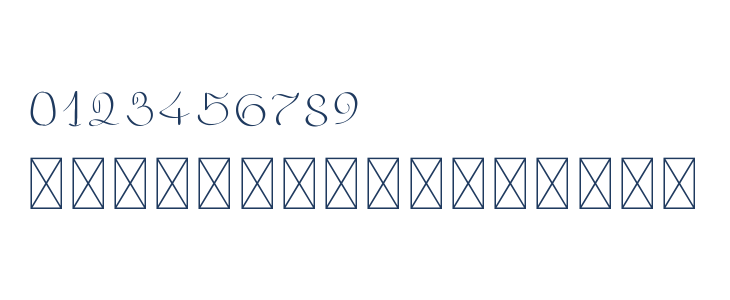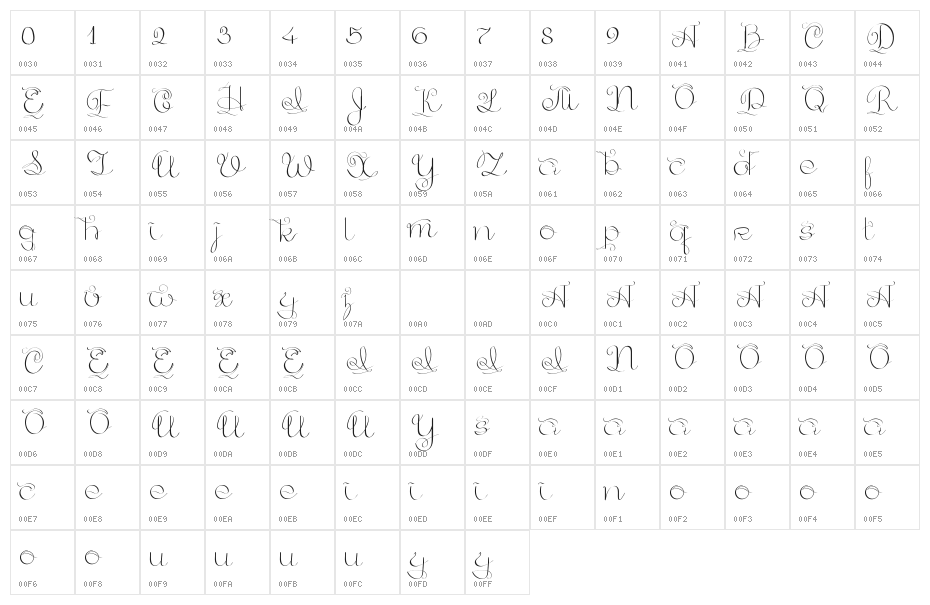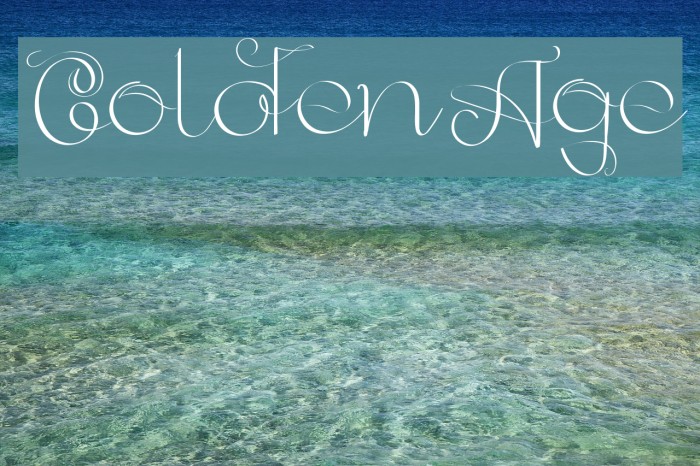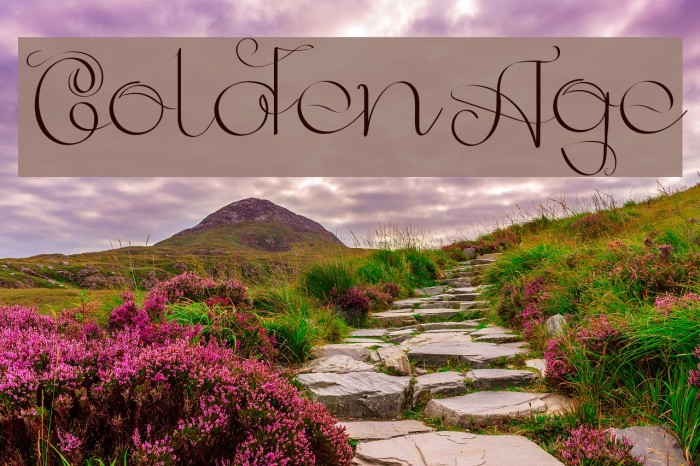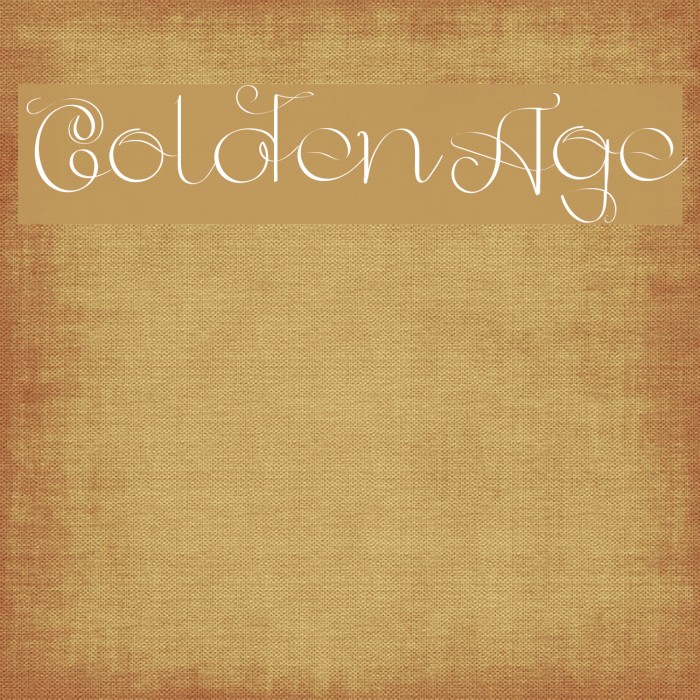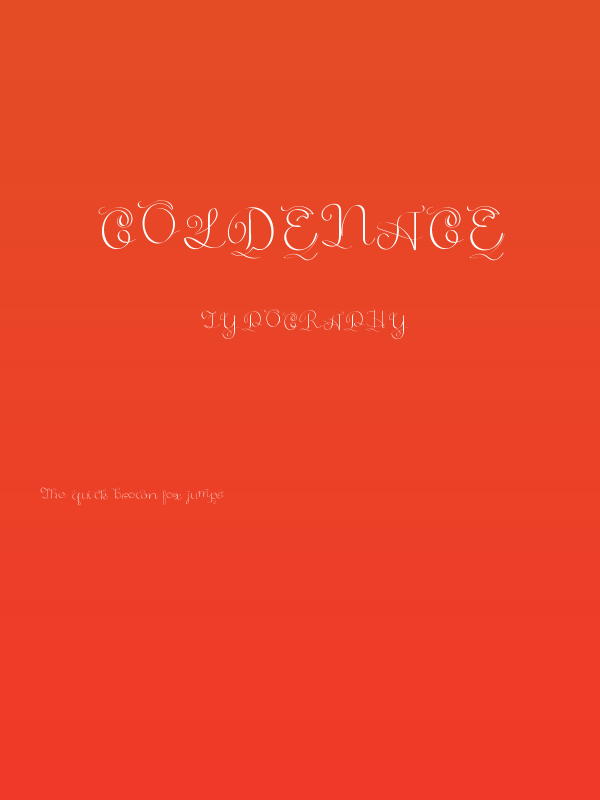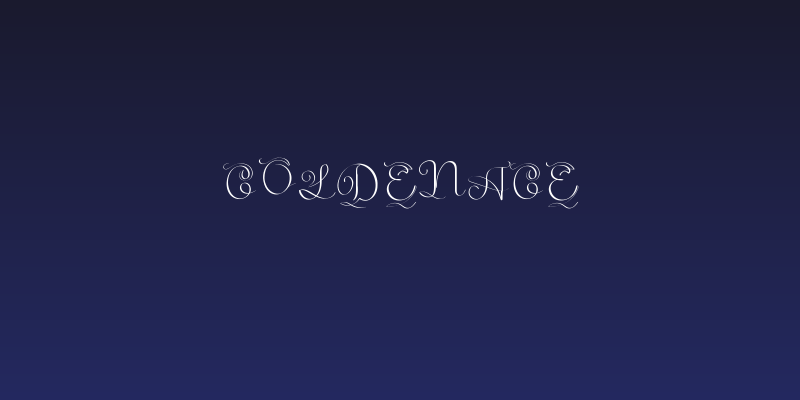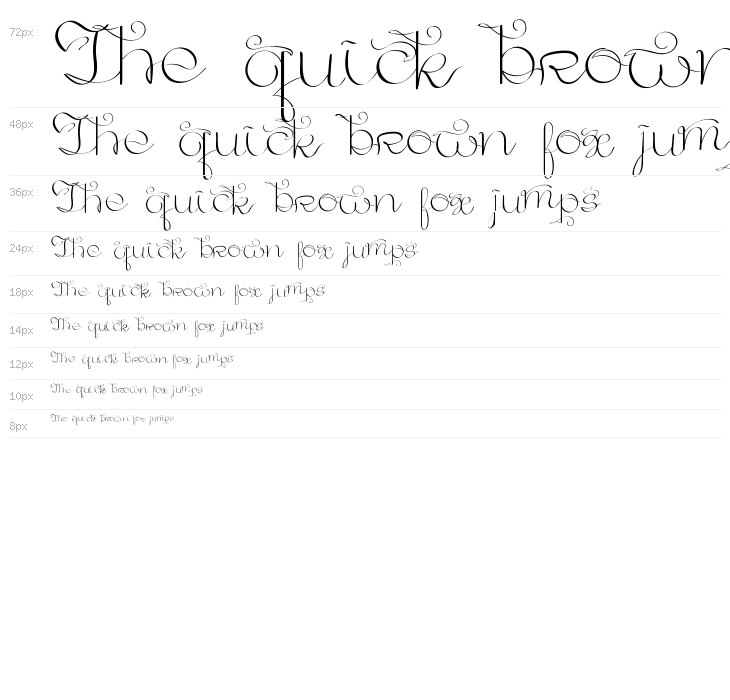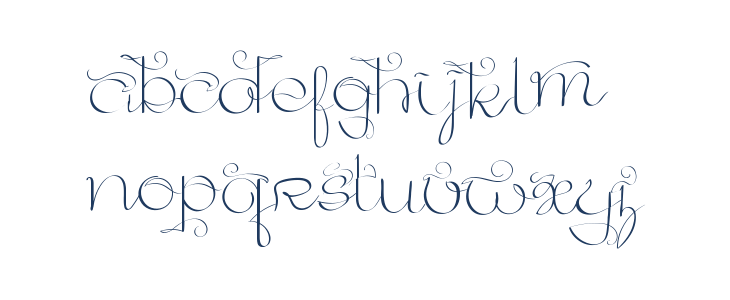
GoldenAge Font
GoldenAge Description
This elegant script font features intricate swirls and flourishes, giving it a sophisticated and decorative appearance. The uppercase letters are adorned with elaborate loops, while the lowercase letters maintain a graceful flow with subtle embellishments. The numerals are consistent with the ornate style, ensuring a cohesive look across all characters. This font exudes a sense of luxury and refinement, making it ideal for projects that require a touch of elegance and class. Its delicate strokes and artistic flair make it stand out as a statement piece in any design.
| Proposed Projects | Ideal for wedding invitations, luxury branding, elegant stationery, and high-end product packaging. |